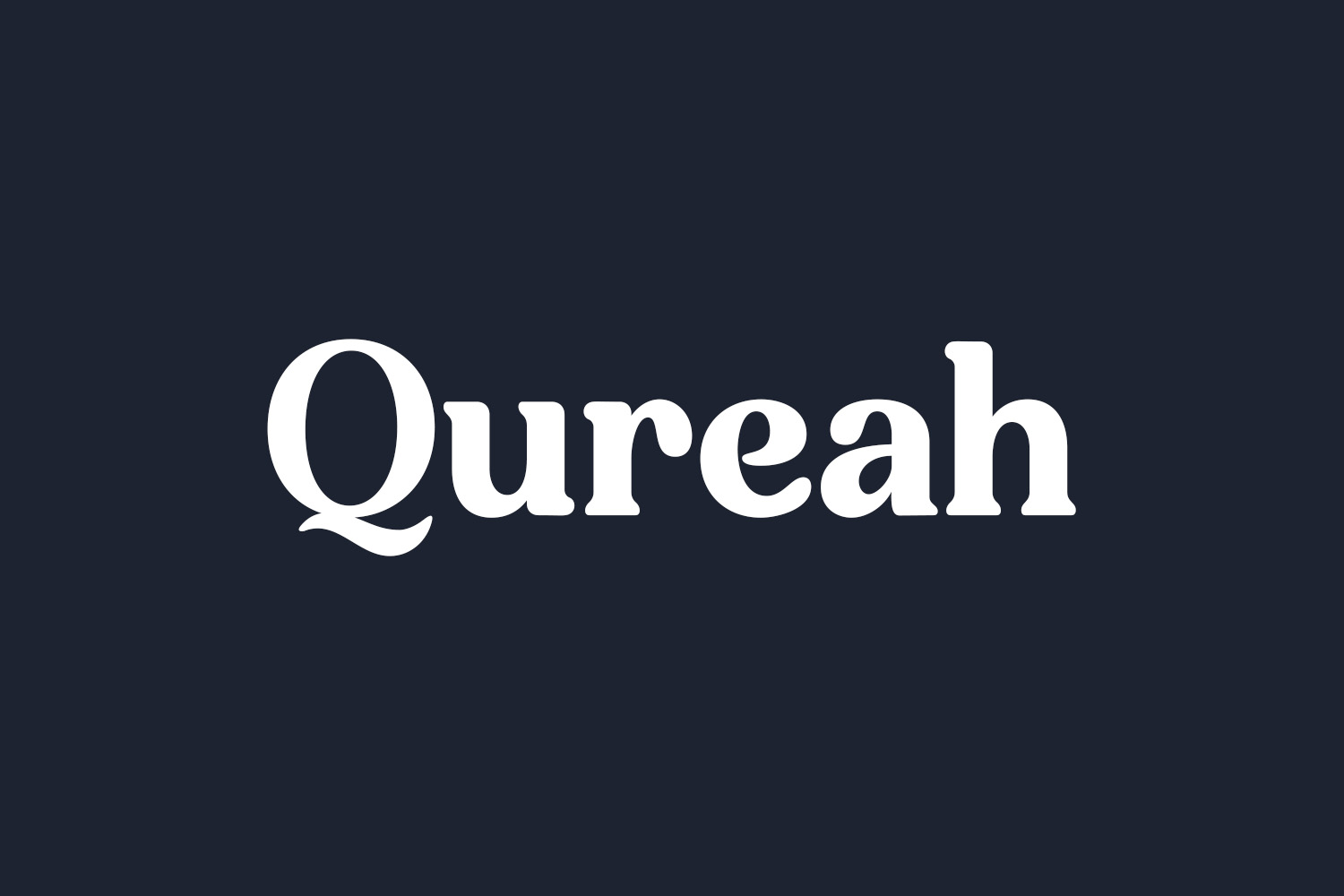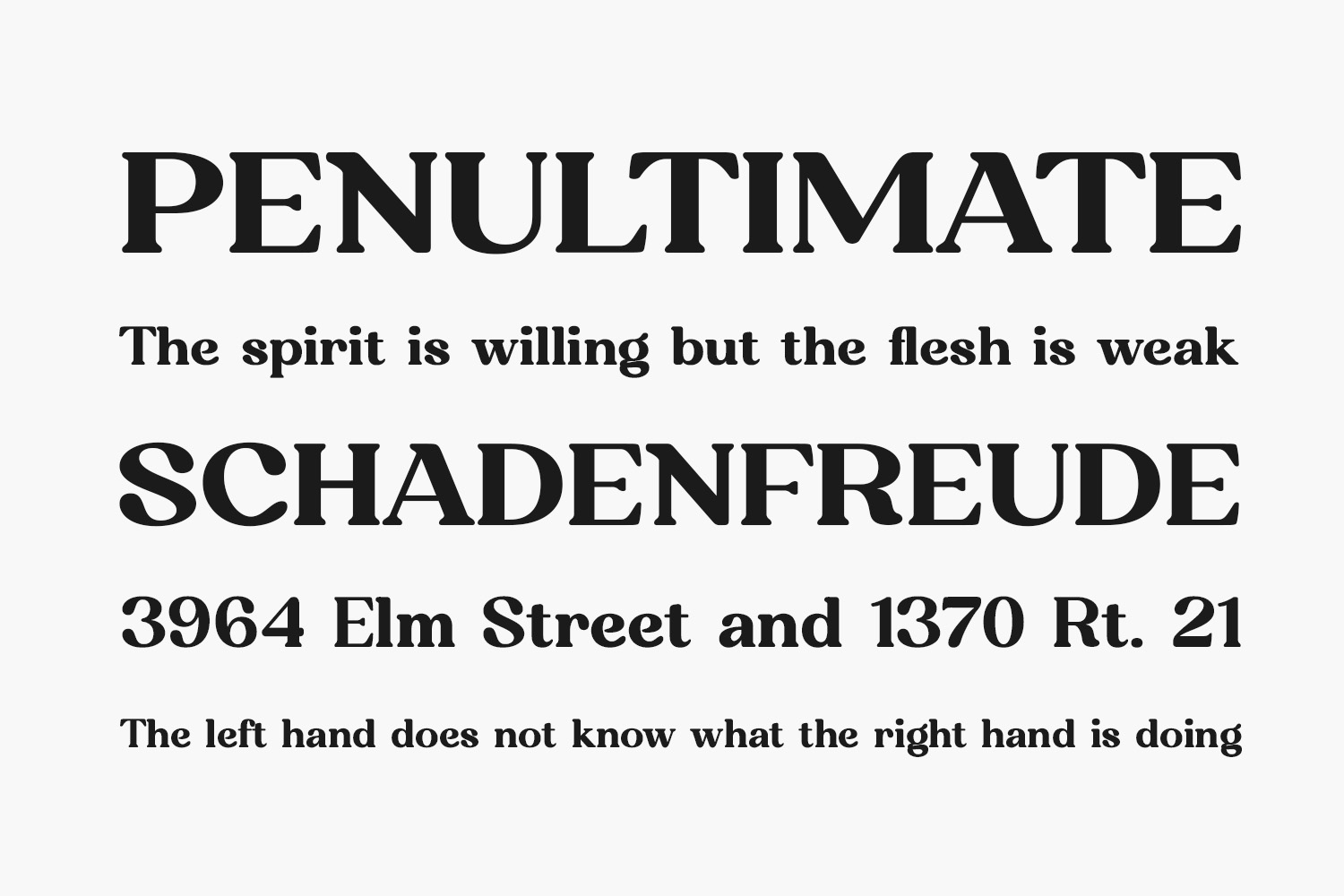
Qureah Free Font is a stylish and elegant serif font. Due to its classy and fashionable character, this font is suitable for a wide range of chic designs. Qureah Free Font is free for personal use only. Please purchase the full version for commercial use.